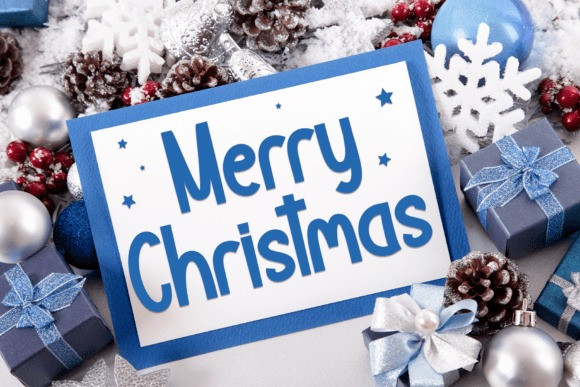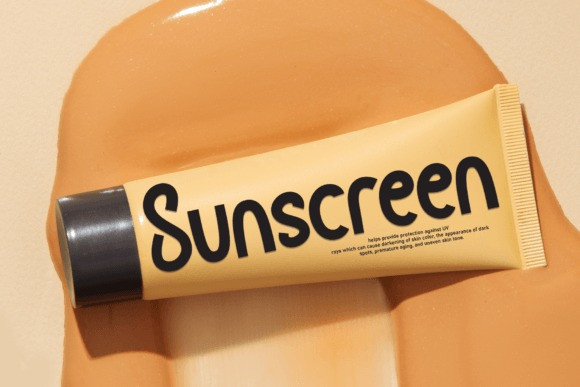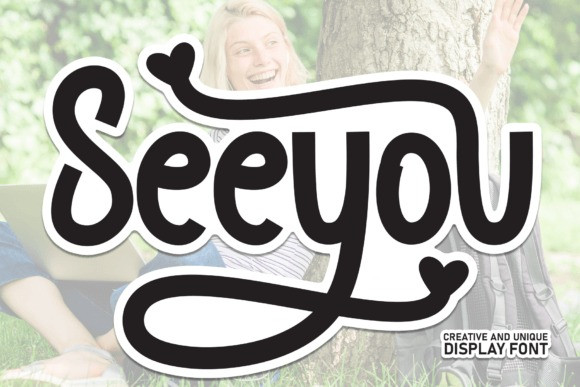
Seeyou Font
Seeyou Font is a flowing handwritten display font, described by an elegant touch, perfect for your favorite projects. Fall in love with its incredibly distinct and timeless style and use it to create spectacular designs!